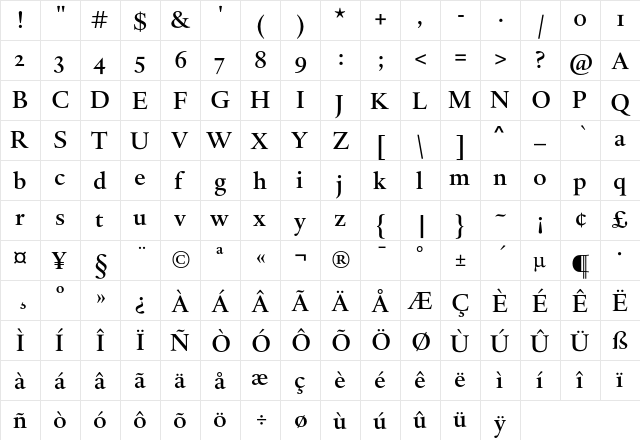
DTL Haarlemmer SD Medium
| Style | SD Medium |
Design Context for DTL Haarlemmer Typeface
DTL Haarlemmer offers clean, dependable letterforms without strong stylistic allegiance, making it a practical choice for designers who need flexibility.
Pro Tip: Pair DTL Haarlemmer with a font of contrasting weight or personality to build a more expressive typographic hierarchy.